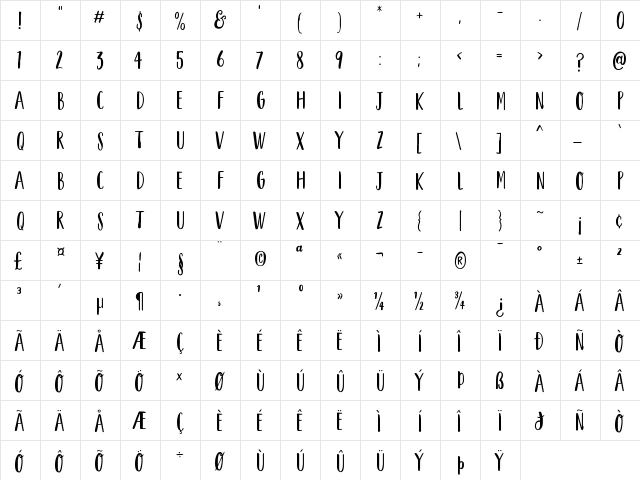
Garden Grown US C Caps
Design Context for Garden Grown US Typeface
Garden Grown US is a composed and adaptable typeface that performs quietly and consistently across a wide range of design contexts.